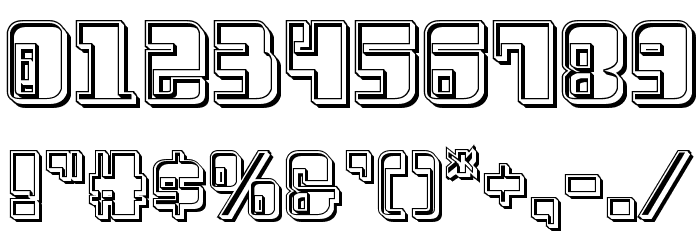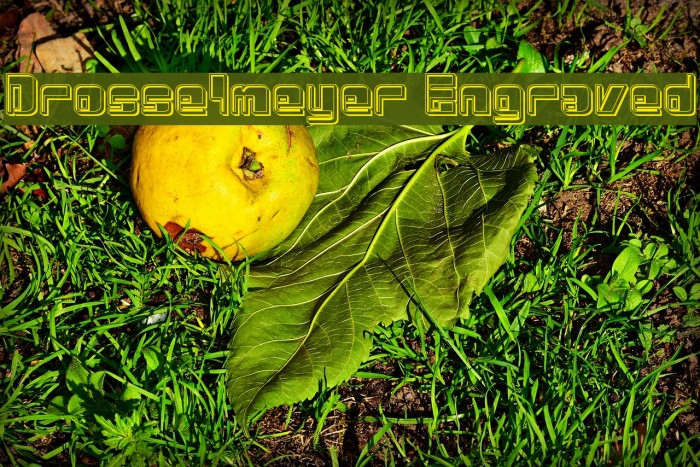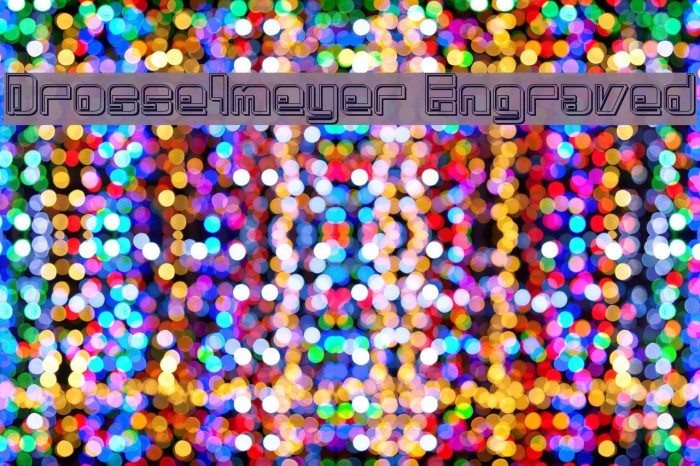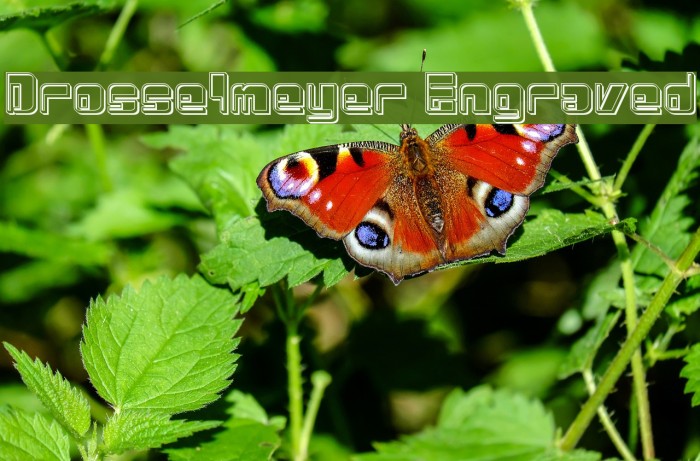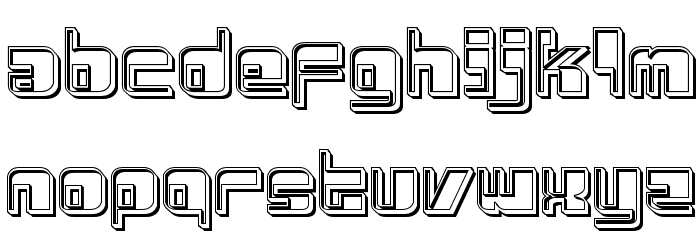
Drosselmeyer Engraved Font
Drosselmeyer Engraved Description
This font features a bold and striking design with a three-dimensional engraved effect, giving each character a sense of depth and texture. The geometric structure is consistent across uppercase, lowercase, and numerical characters, with sharp angles and clean lines. The font's distinct outline style adds a layer of complexity, making it stand out in any design. Special characters are crafted with the same attention to detail, ensuring uniformity and balance throughout the set. The overall appearance is modern and eye-catching, suitable for projects that require a bold statement.
A bold, engraved font with a three-dimensional, geometric style from Uncategorized fonts.
- Proposed Projects: Ideal for posters, logos, branding, and any design that requires a bold and modern aesthetic.